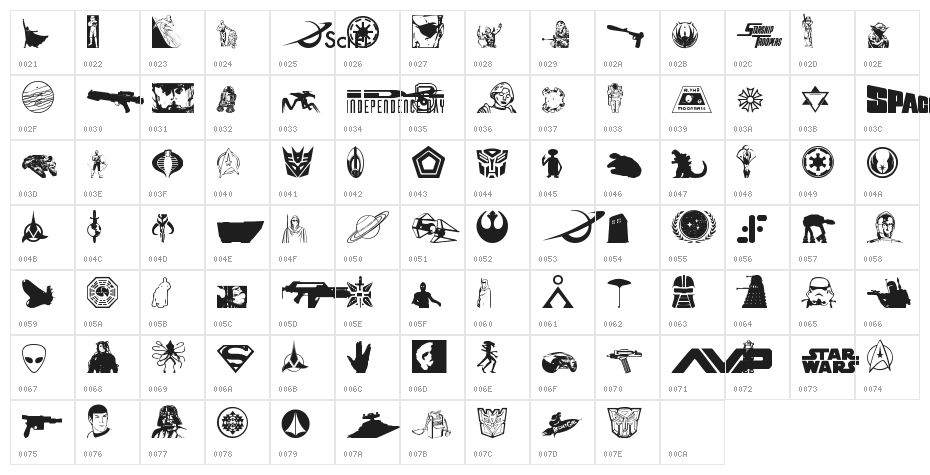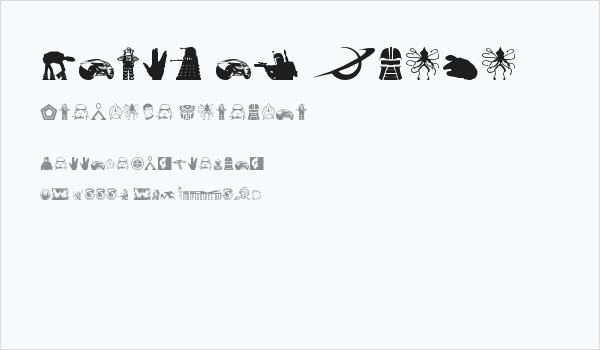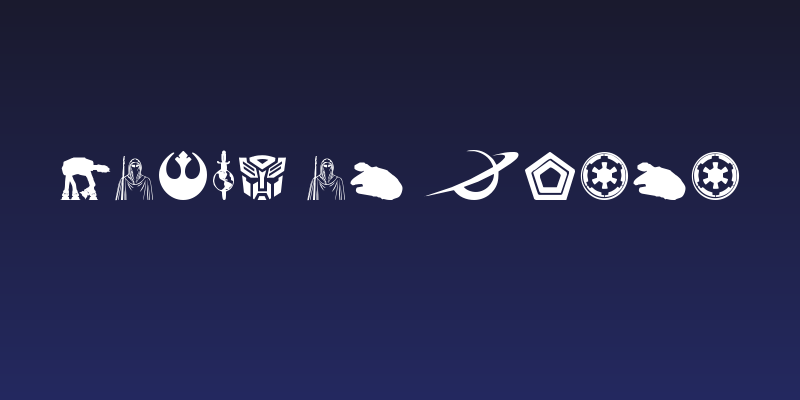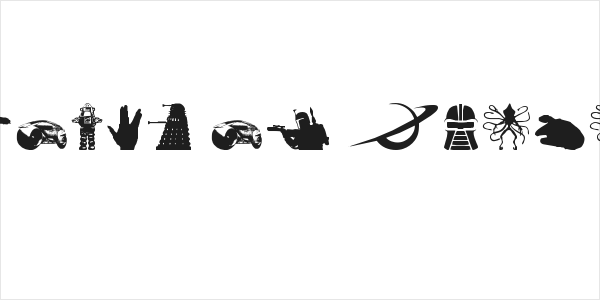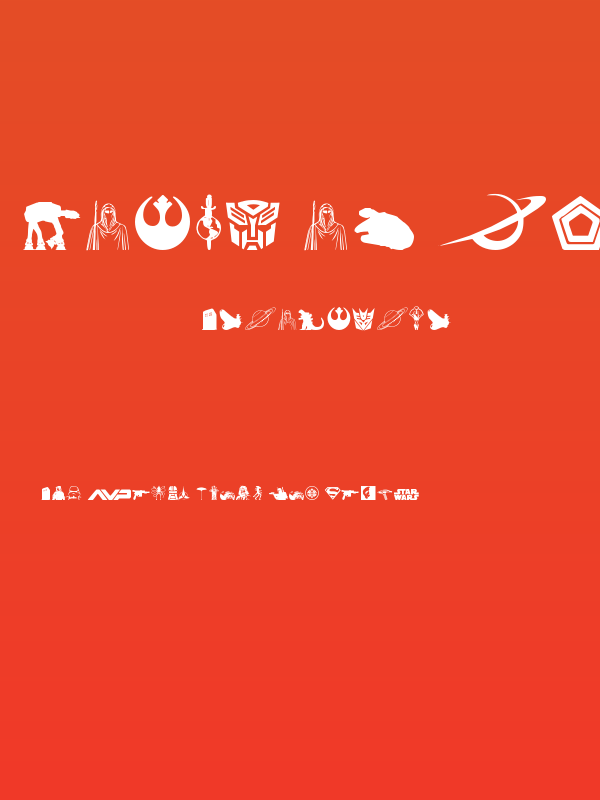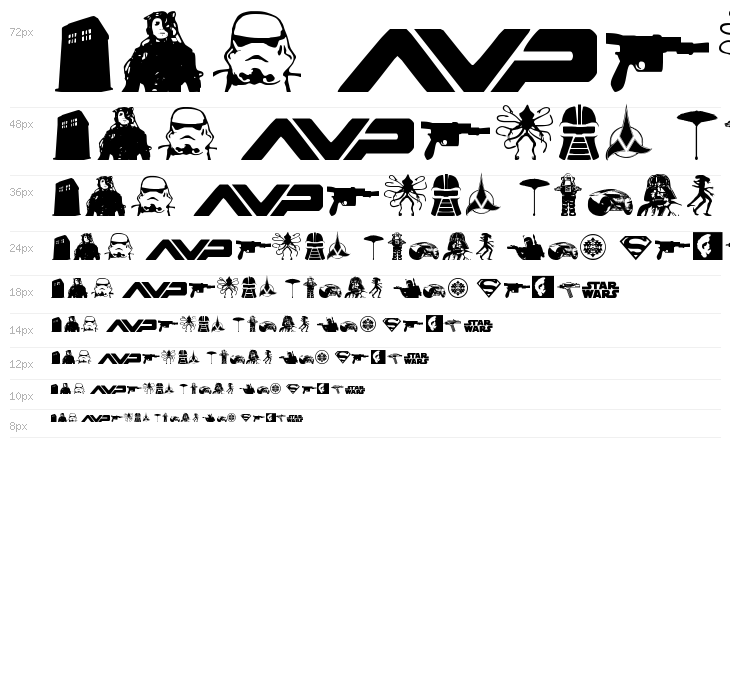
World of SciFi Font
World of SciFi Description
A decorative display font composed entirely of iconic science fiction symbols, logos, and silhouettes from various franchises, with each character represented by a unique sci-fi themed graphic rather than traditional letterforms.
| Overall Style | Decorative, Thematic, Pop Culture |
| Use Case | Logos, Headlines, Themed graphics, Posters |
| Proposed Projects | Posters, fan art, themed party invitations, event branding, collectibles, digital stickers. |